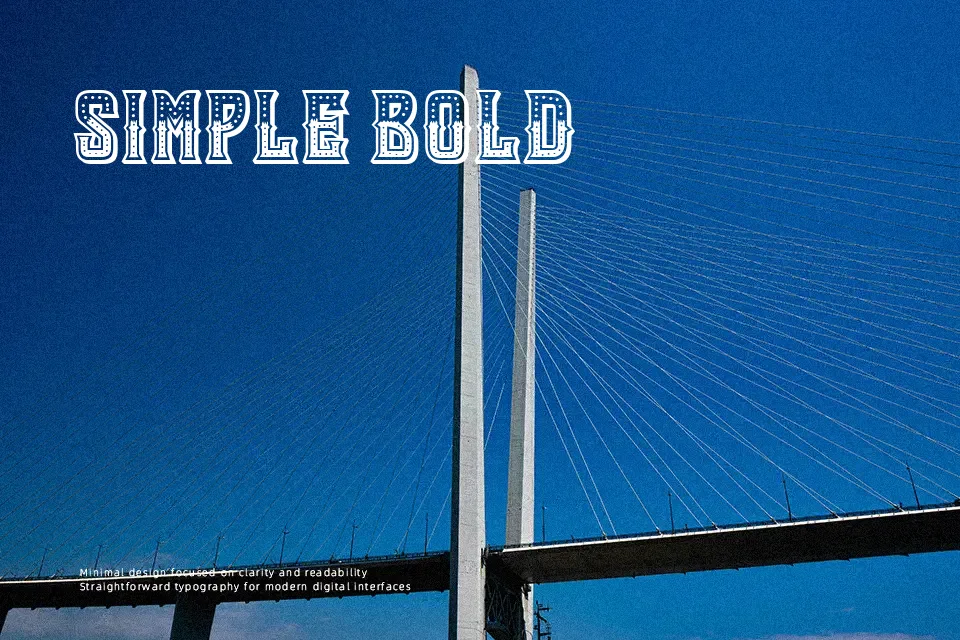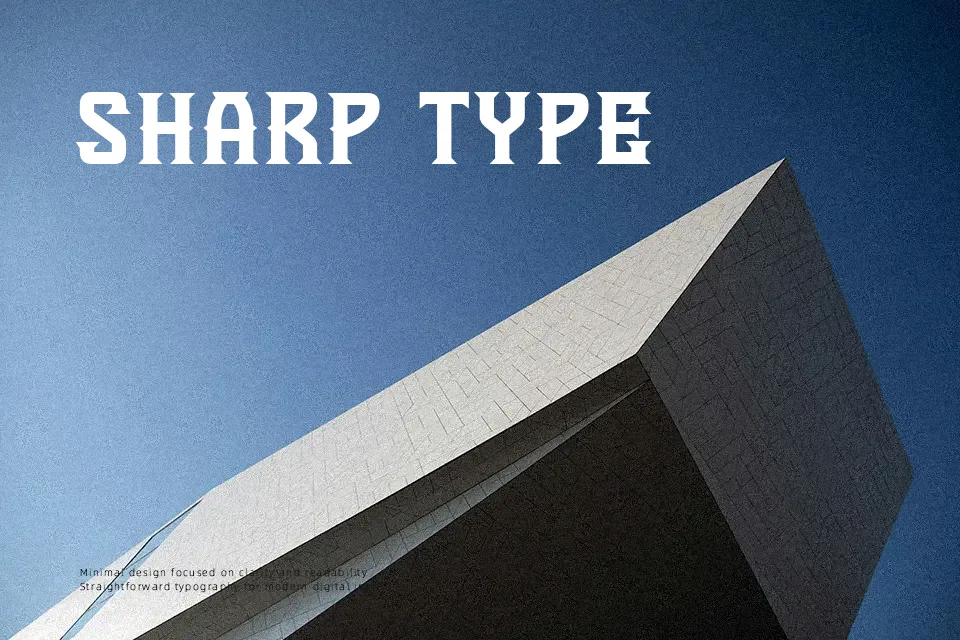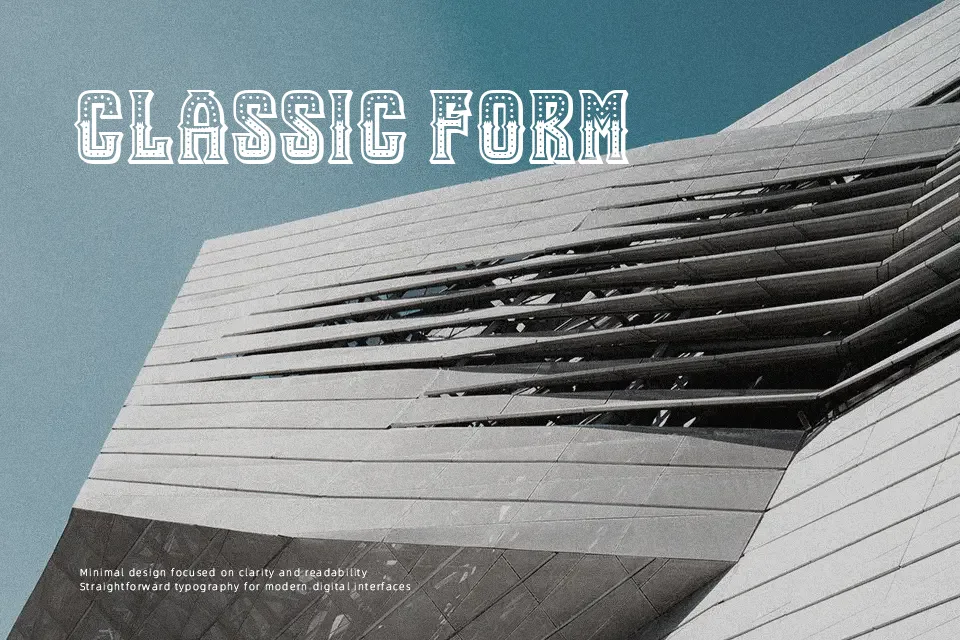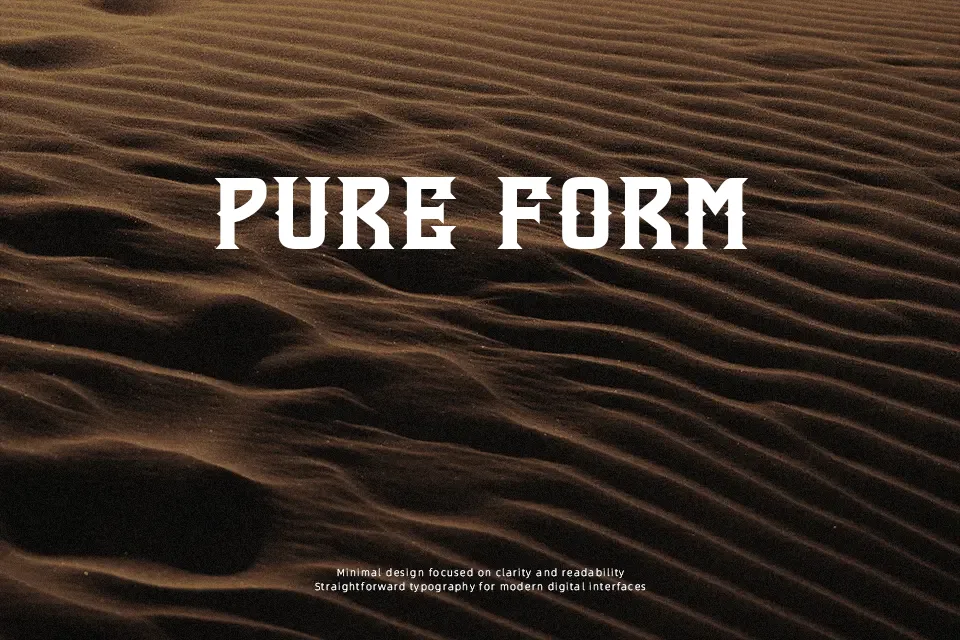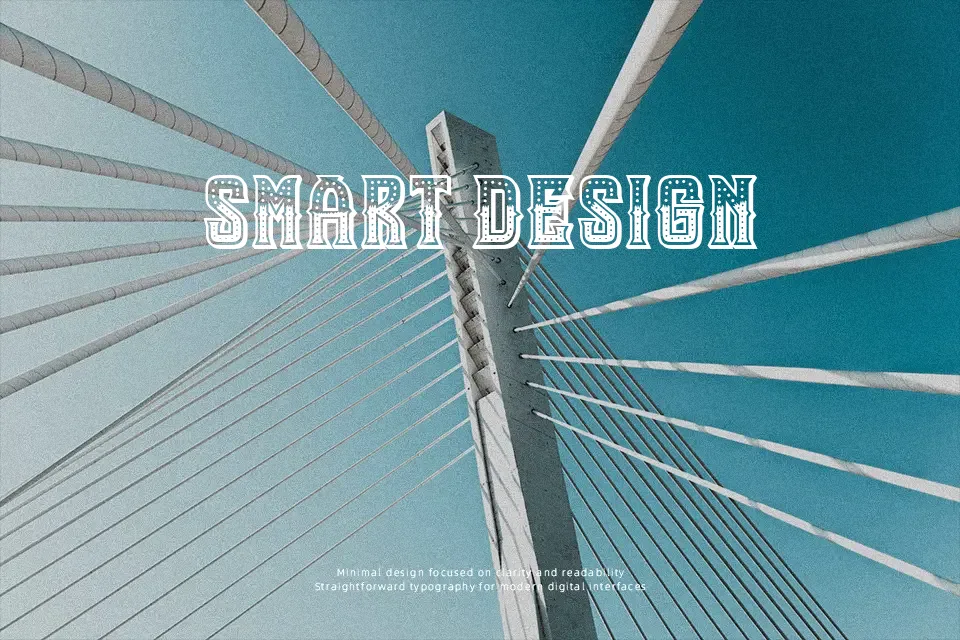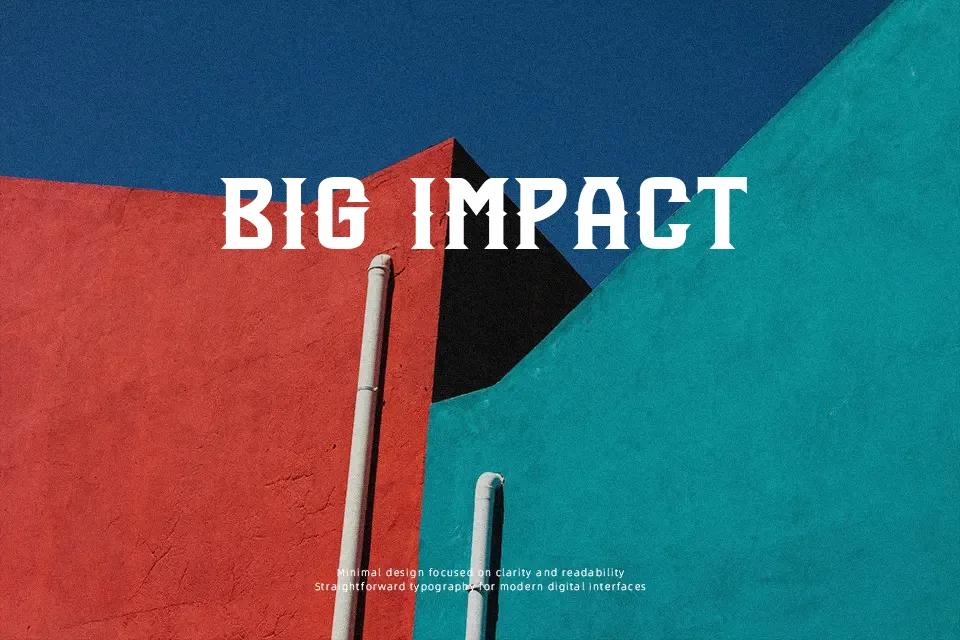
Vampire Font
Vampire Font features aggressive, pointed decorative strokes with pronounced triangular flares that evoke a classic gothic horror aesthetic. The typeface maintains consistent vertical stems paired with razor-sharp terminals, creating an intense visual rhythm across short headlines. Proportions remain relatively condensed, and tight spacing gives character combinations a compact, commanding presence. In large-scale display formats such as festival posters or seasonal apparel, the design commands immediate attention. However, the heavy decorative spikes and narrow counters noticeably degrade legibility when scaled down to continuous text. The letterforms perform with remarkable impact when used sparingly as focal elements.
horror film posters,Halloween party flyers,themed apparel graphics,seasonal merchandise packaging
continuous paragraph text,dense mobile interfaces,formal business documentation,small caption labels
Perfect for film, halloween, and headline, with a dark and decorative style.